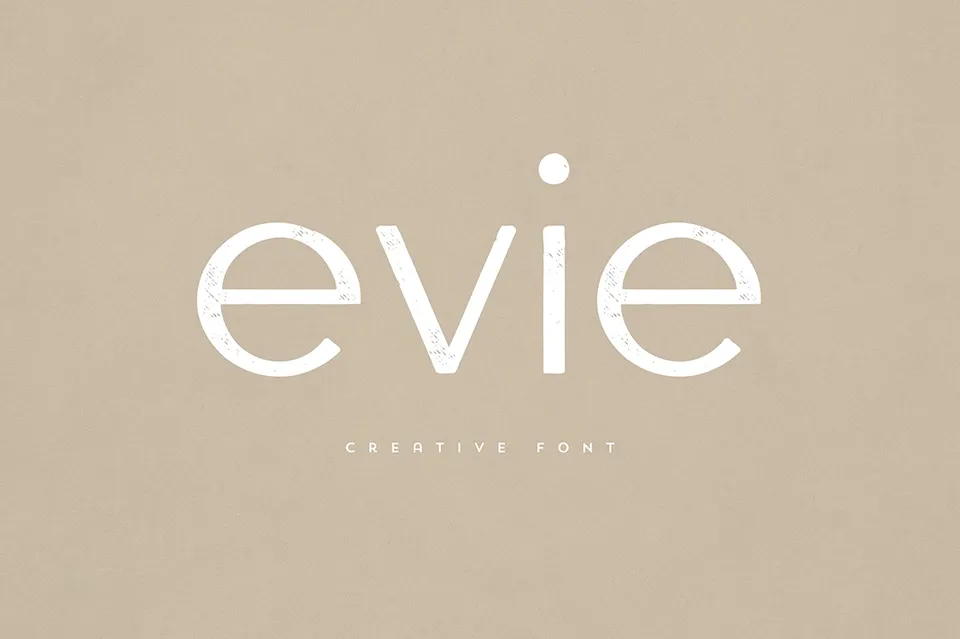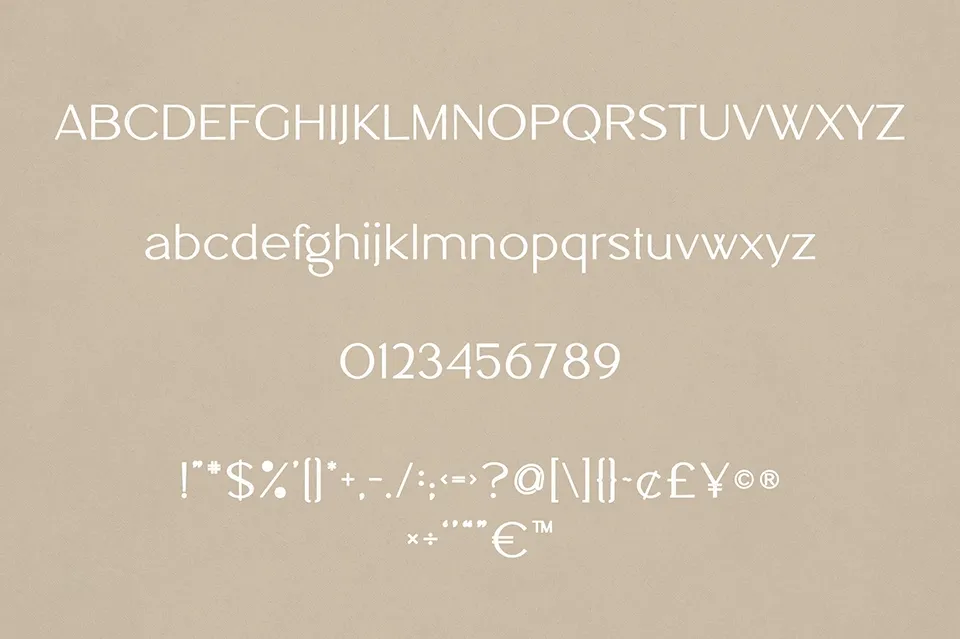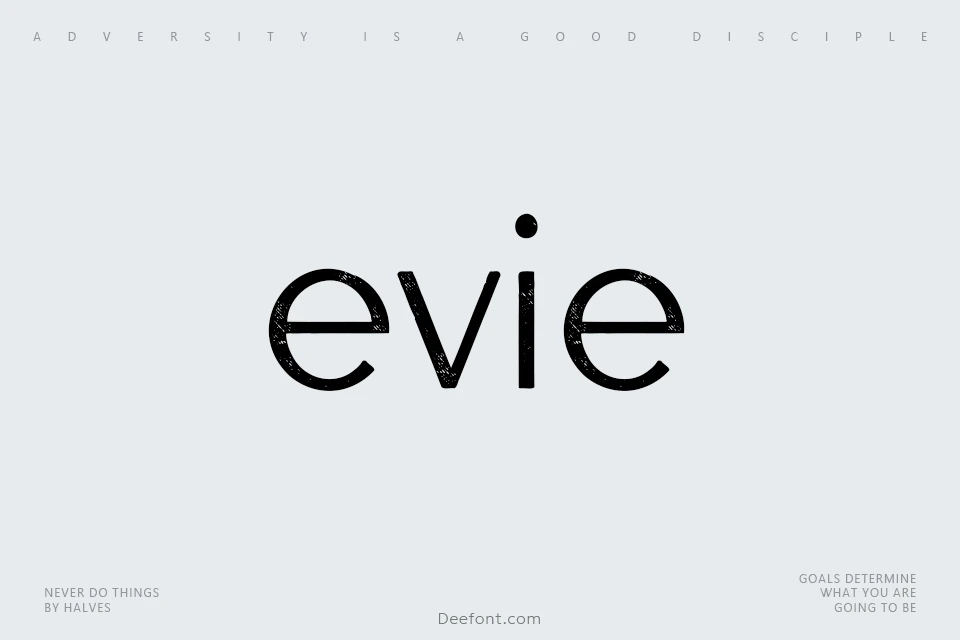
Evie Font
The Evie Font is an elegant and versatile sans serif typeface that brings a unique touch to any design. With its clean lines and subtle personality, it is perfect for logos, branding, headlines, and even body copy. Its friendly and organic feel ensures your typography stands out, whether used for professional or personal projects.